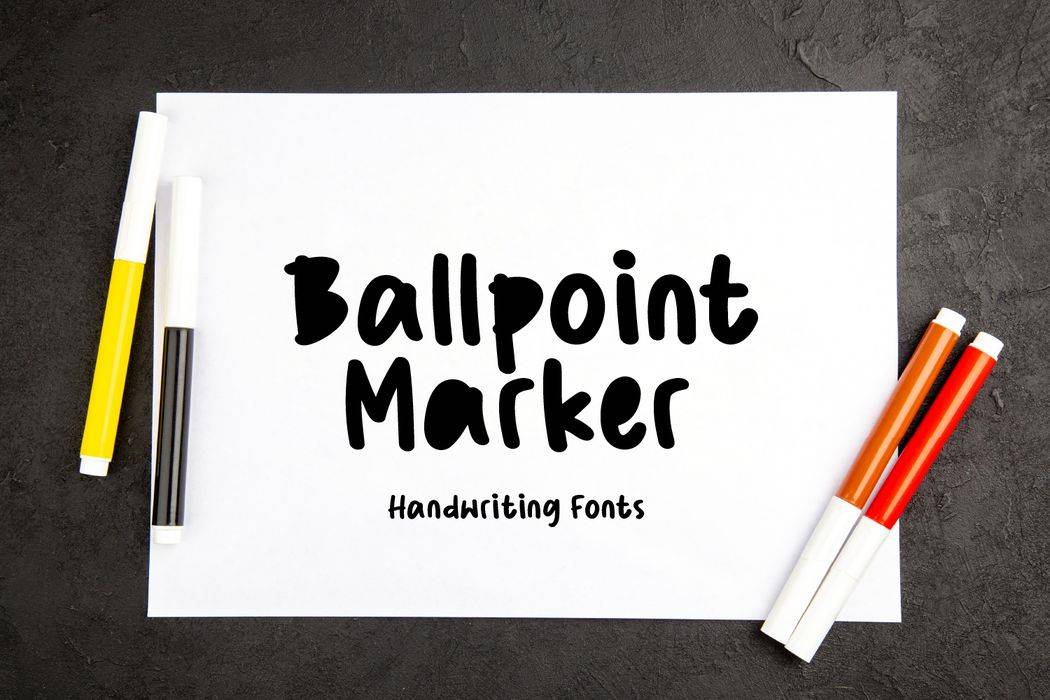
Ballpoint Marker is a casual, handwritten-style sans serif font that mimics the look of text written with a thick marker. It features a friendly and playful feel through its rounded, uneven letterforms with moderate weight and a lively, informal character. This font works well in creative and approachable designs such as children’s materials, informal branding, and fun headlines where a personal touch is desired.
Ballpoint Marker Font
About Ballpoint Marker Font
| Designer | Stefie Justprince |